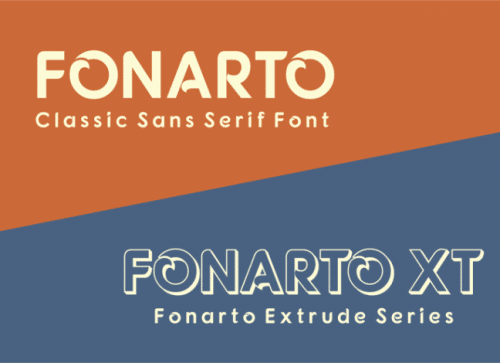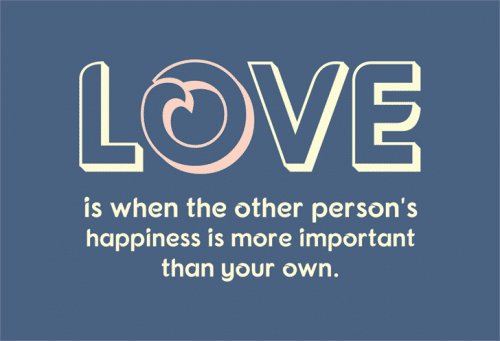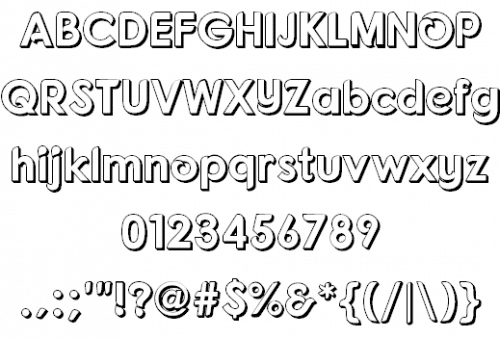
Fonarto is a sans serif font that is combined with classic shape in some parts. It makes Fonarto has a modern style with classic impression. Available in two version, regular and XT style.
- Designer: Locomotype Studio